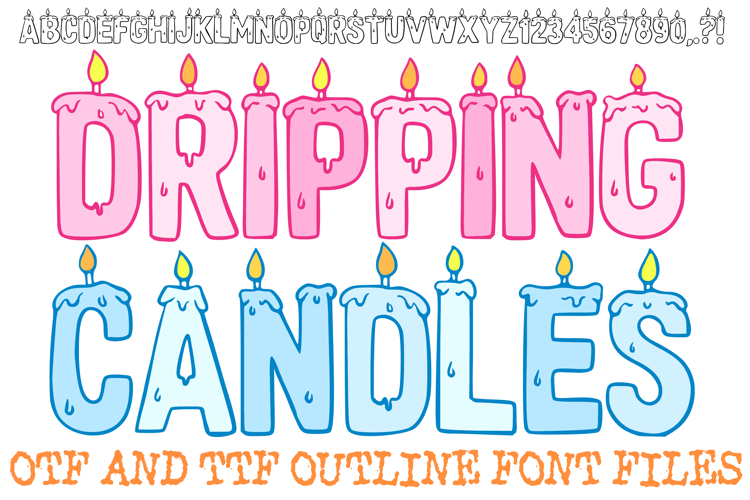
The Dripping Candles Font is a warm and atmospheric display typeface featuring bold, rounded letterforms topped with lit wicks and melting wax. Characterized by "dripped" textures and a playful hand-drawn outline, this font is an essential asset for designers working on birthday party invitations, cozy celebration graphics, vigil flyers, and seasonal festive branding.
The design creates a glowing, celebratory energy, as if each character were a flickering candle lit for a special occasion. Whether you are building branding for a boutique candle shop or designing heartfelt greeting cards, this font provides a whimsical and comforting aesthetic that is both highly decorative and easy to read.
Why Your Designs Will Stand Out
Glowing Wick Detail: Each letter and number features a stylized flame at the top, adding vertical interest and a unique "lit" personality to your text.
Realistic Wax Melt: The varied dripping wax patterns along the top and sides of the characters provide a tactile, handcrafted feel.
High-Visibility Boldness: The thick, blocky construction ensures that your headers remain clear and impactful on posters, apparel, and digital banners.
Versatile Occasion Theme: The "candlelight" concept makes it a standout choice for everything from birthday milestones to peaceful memorial designs.